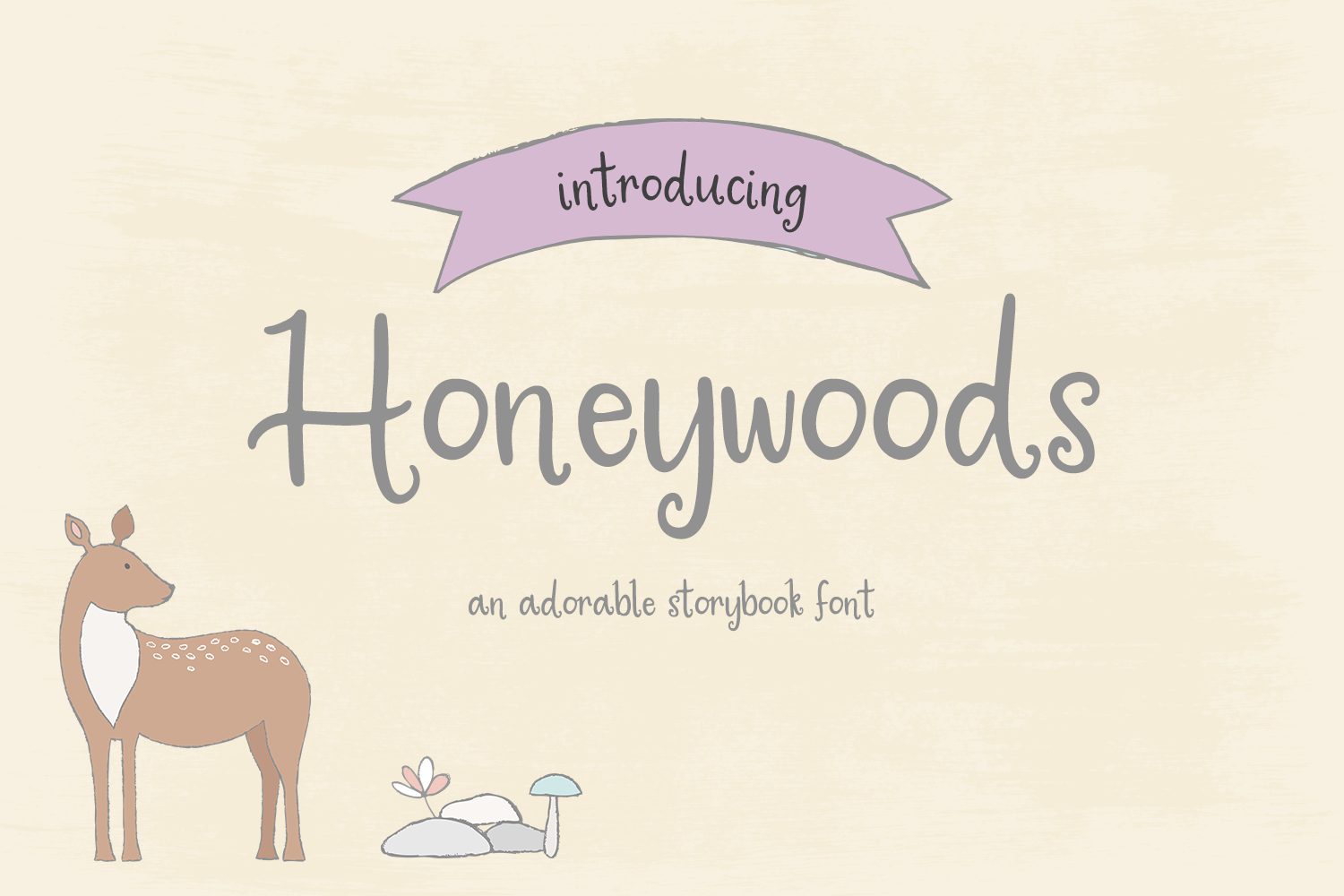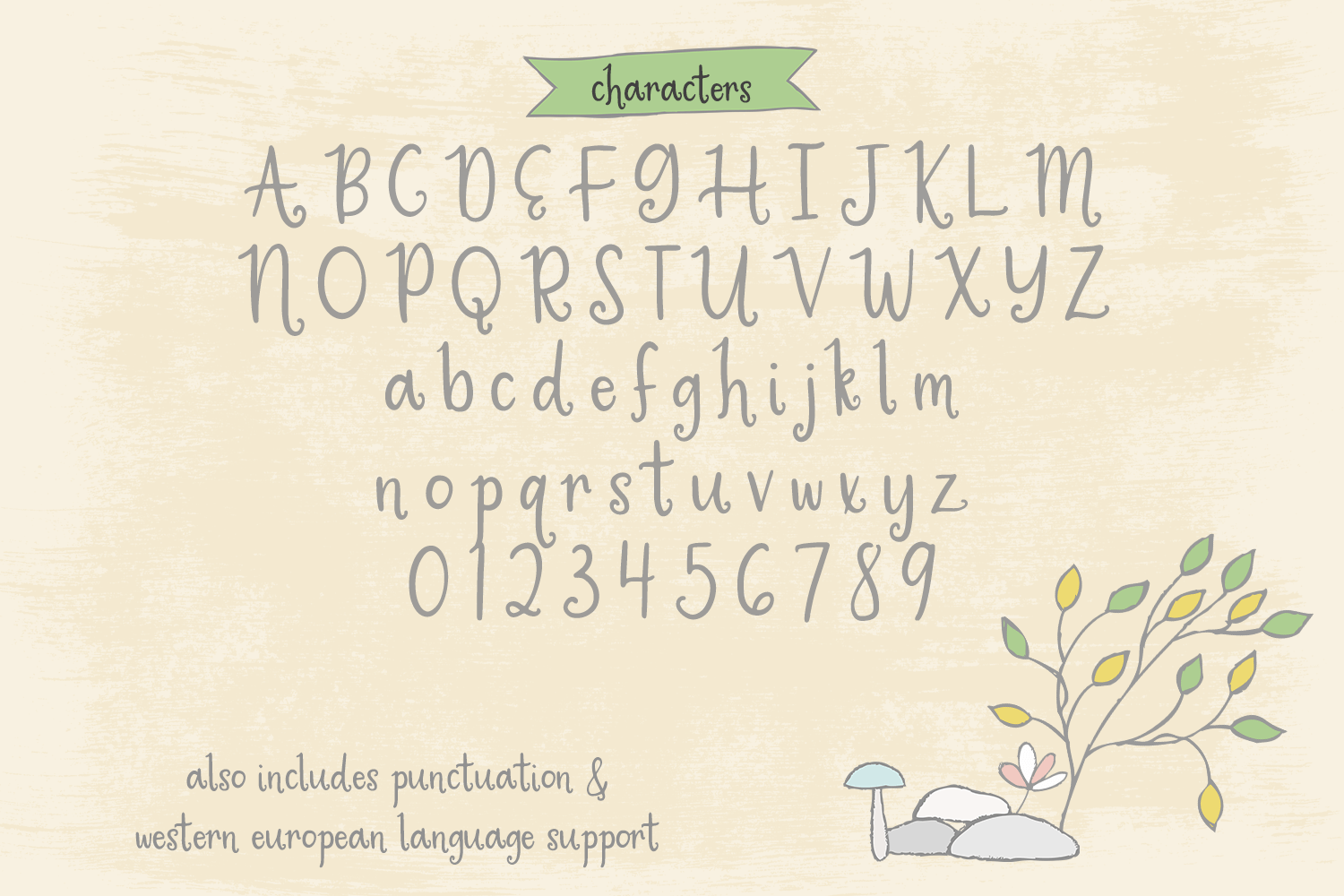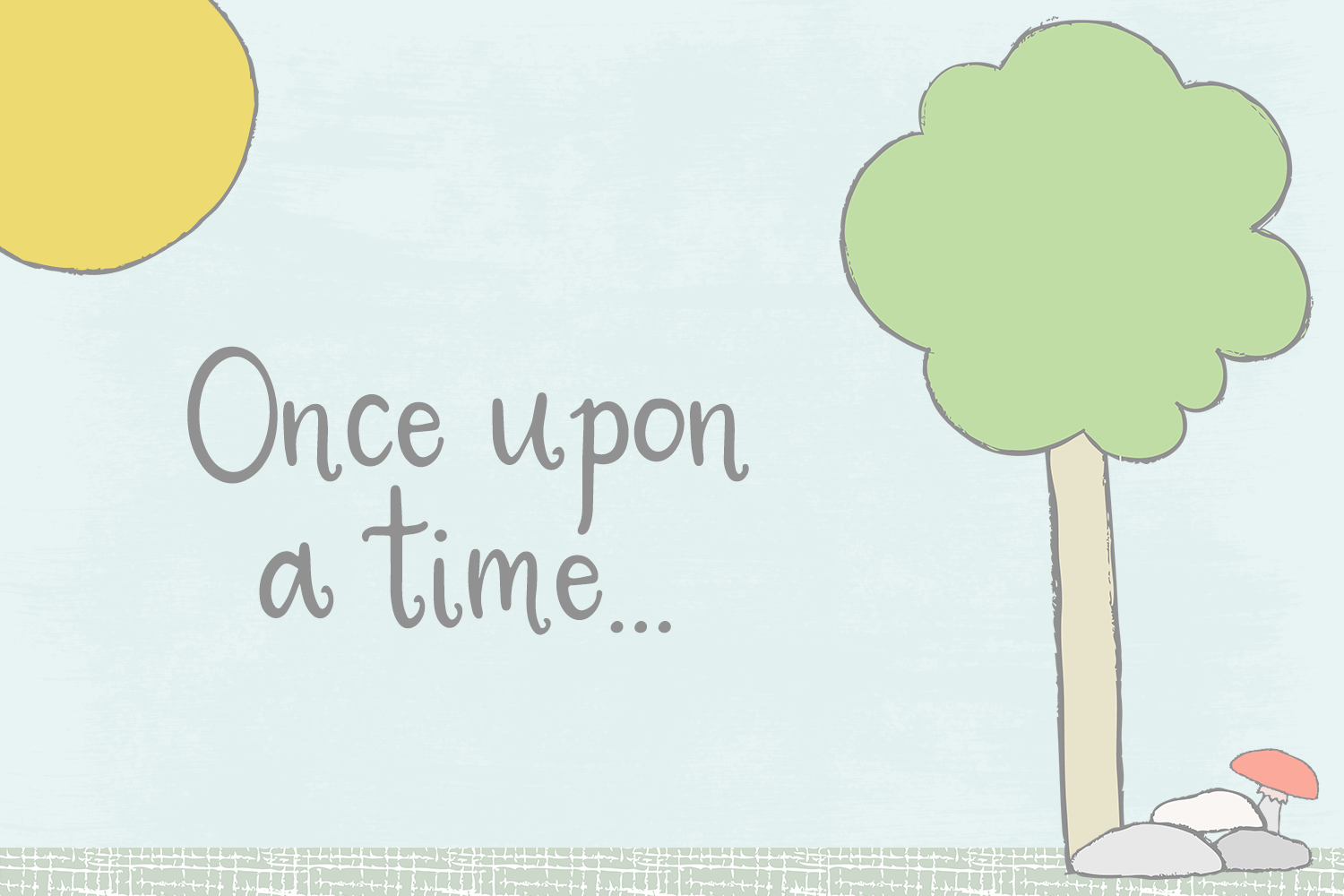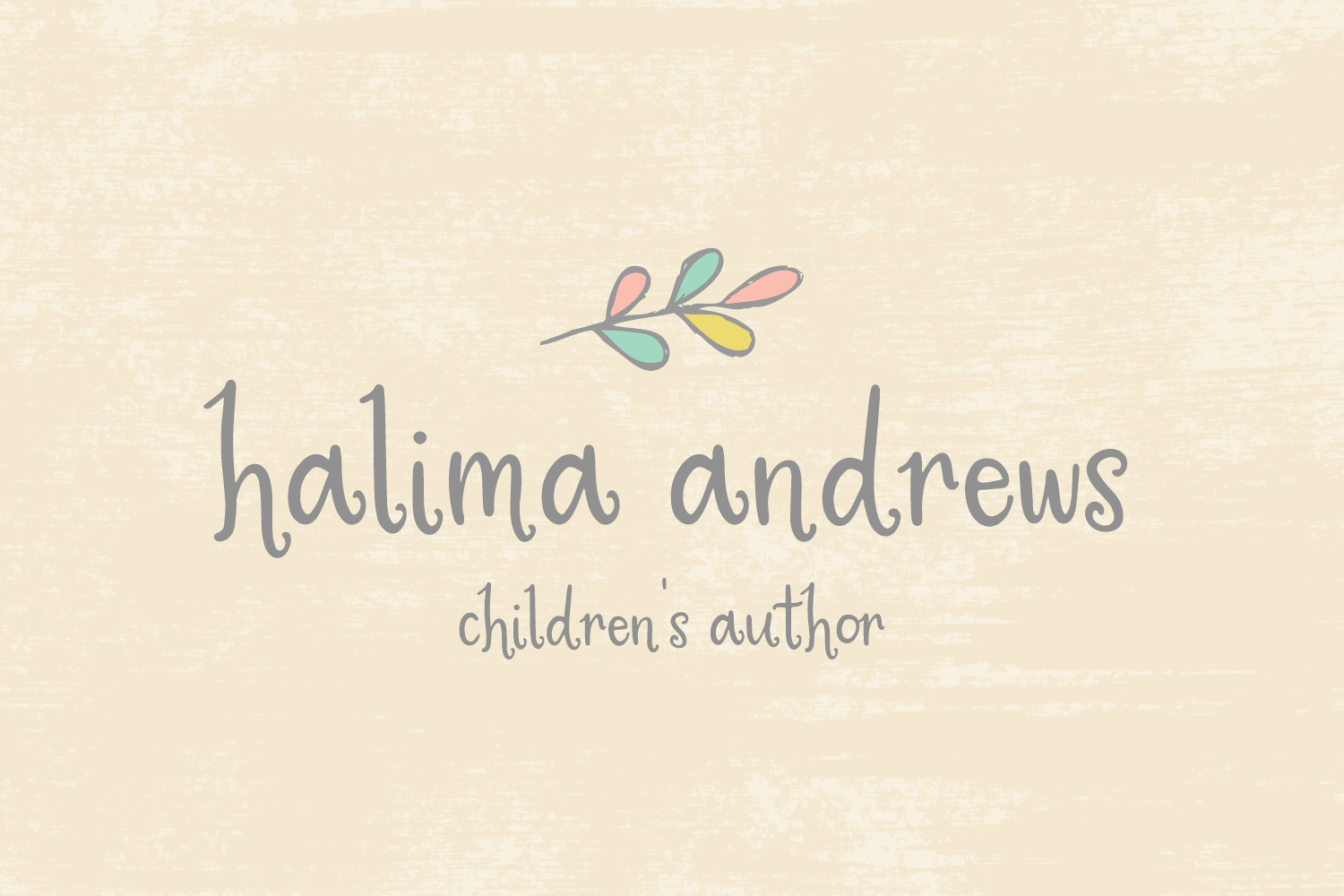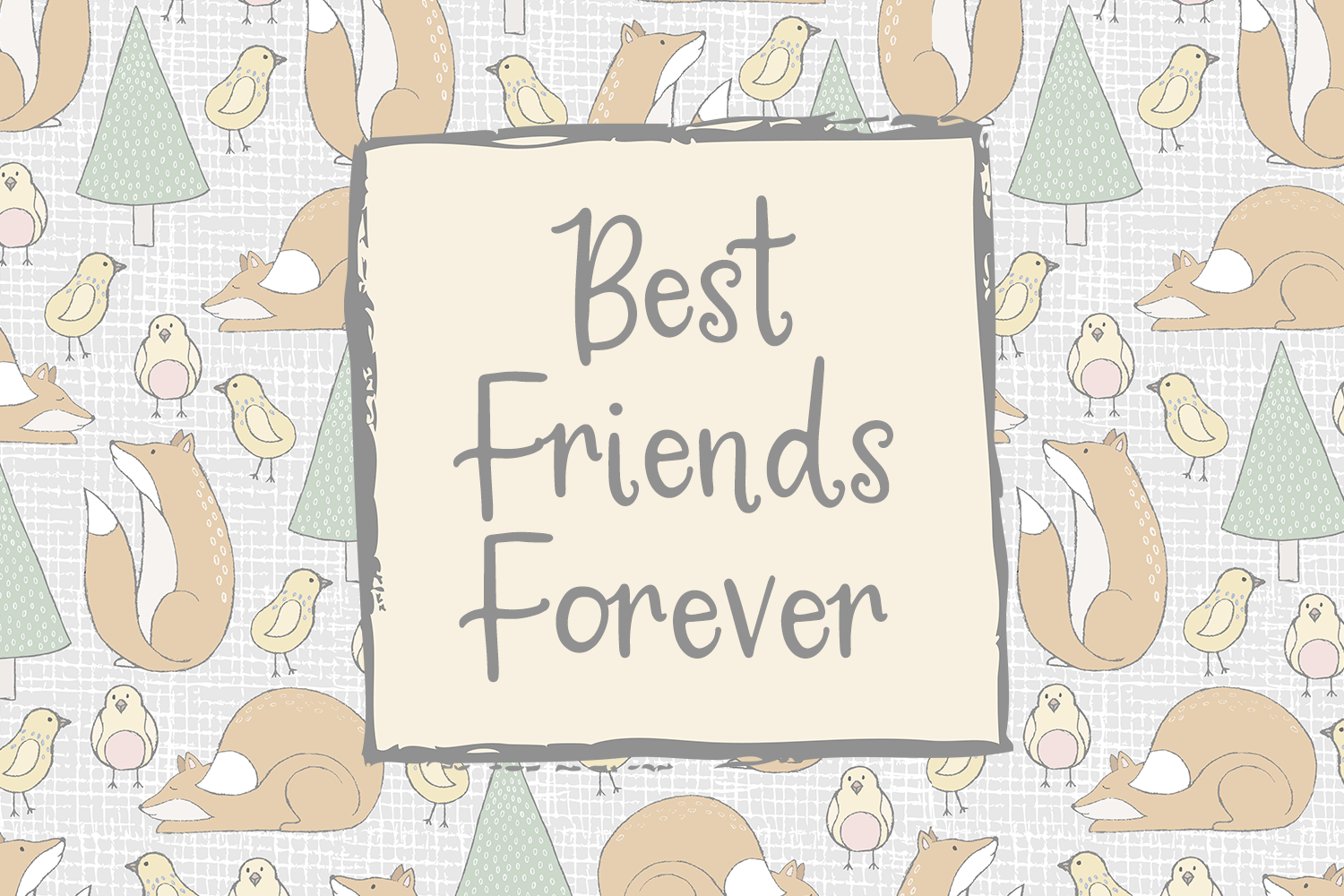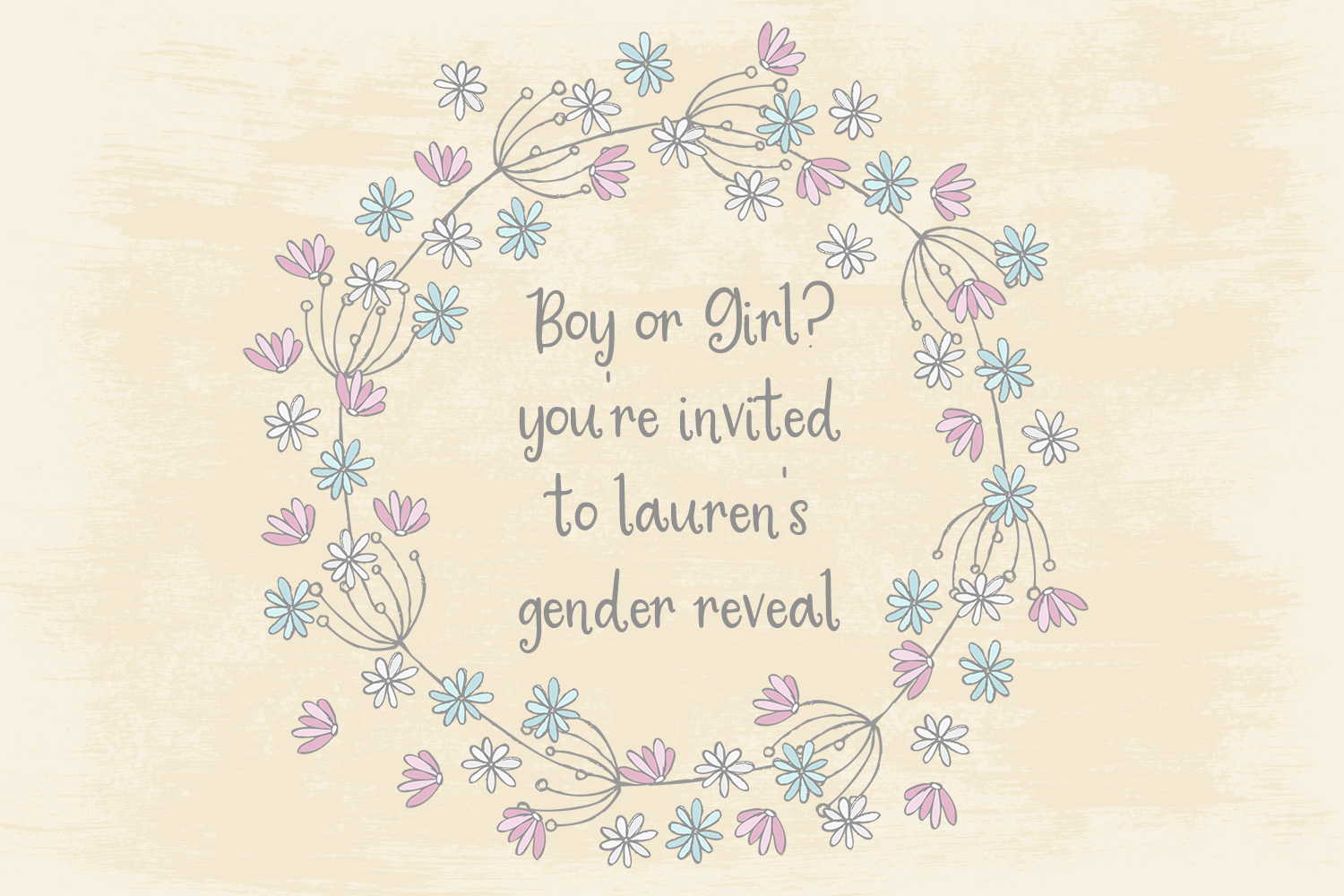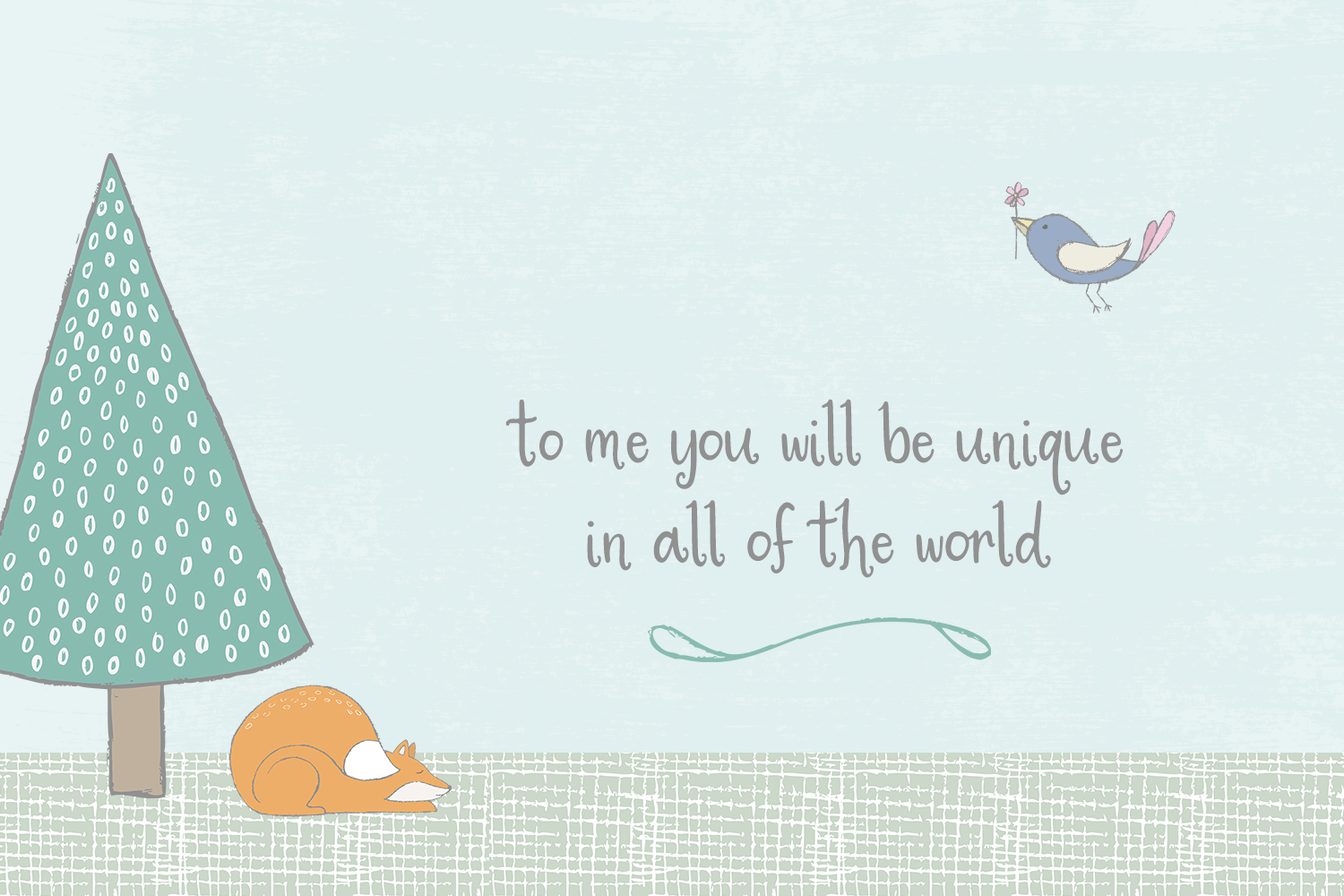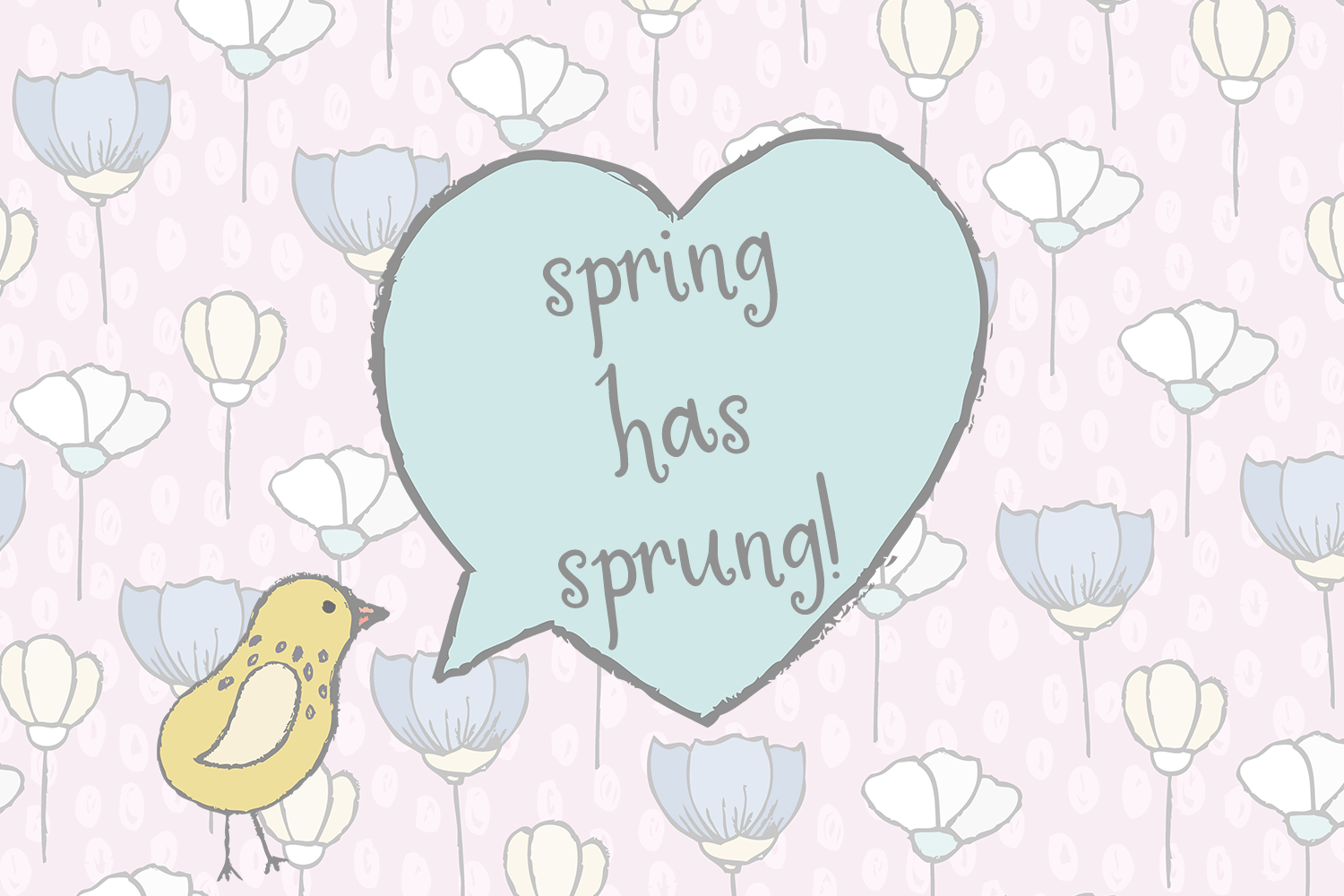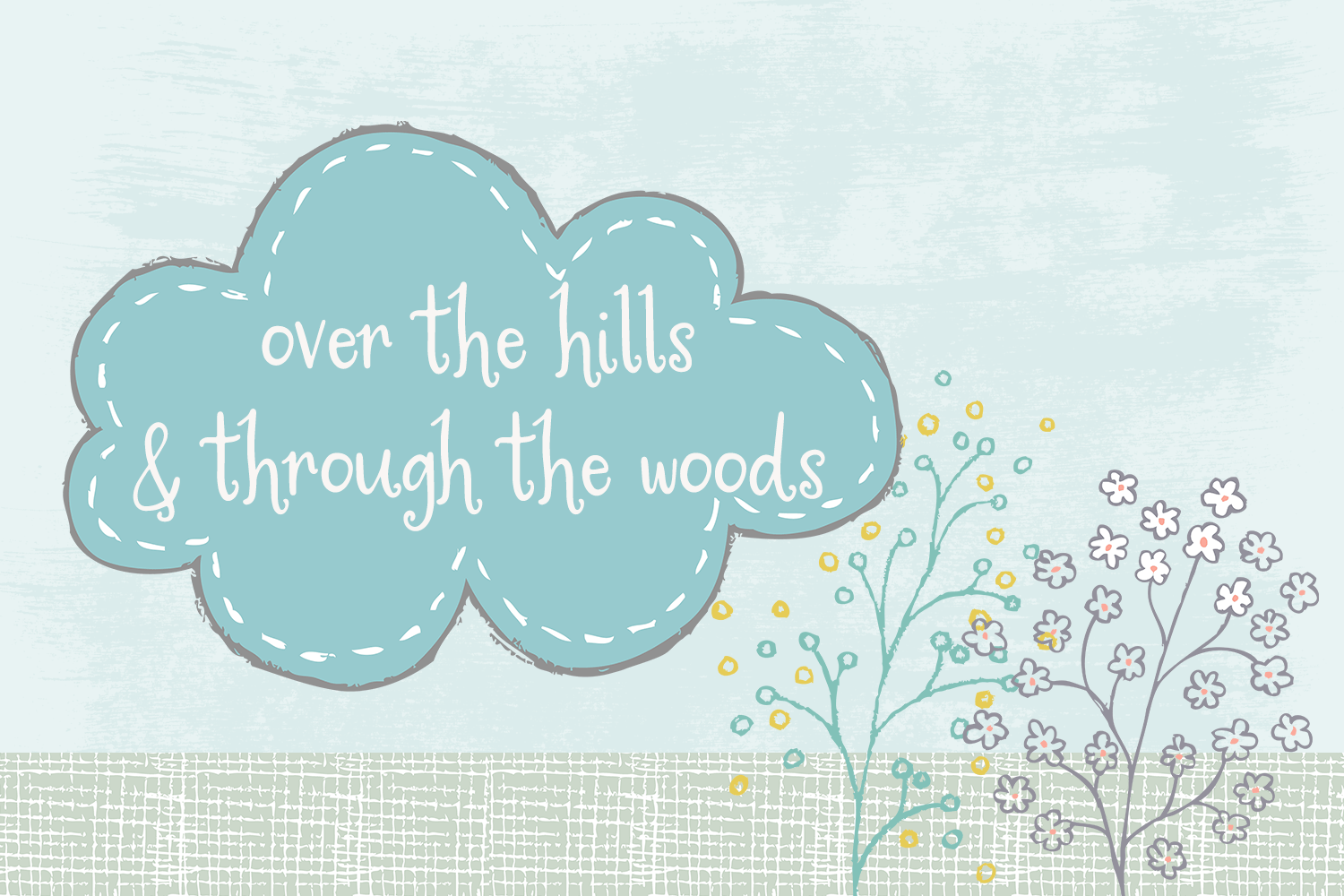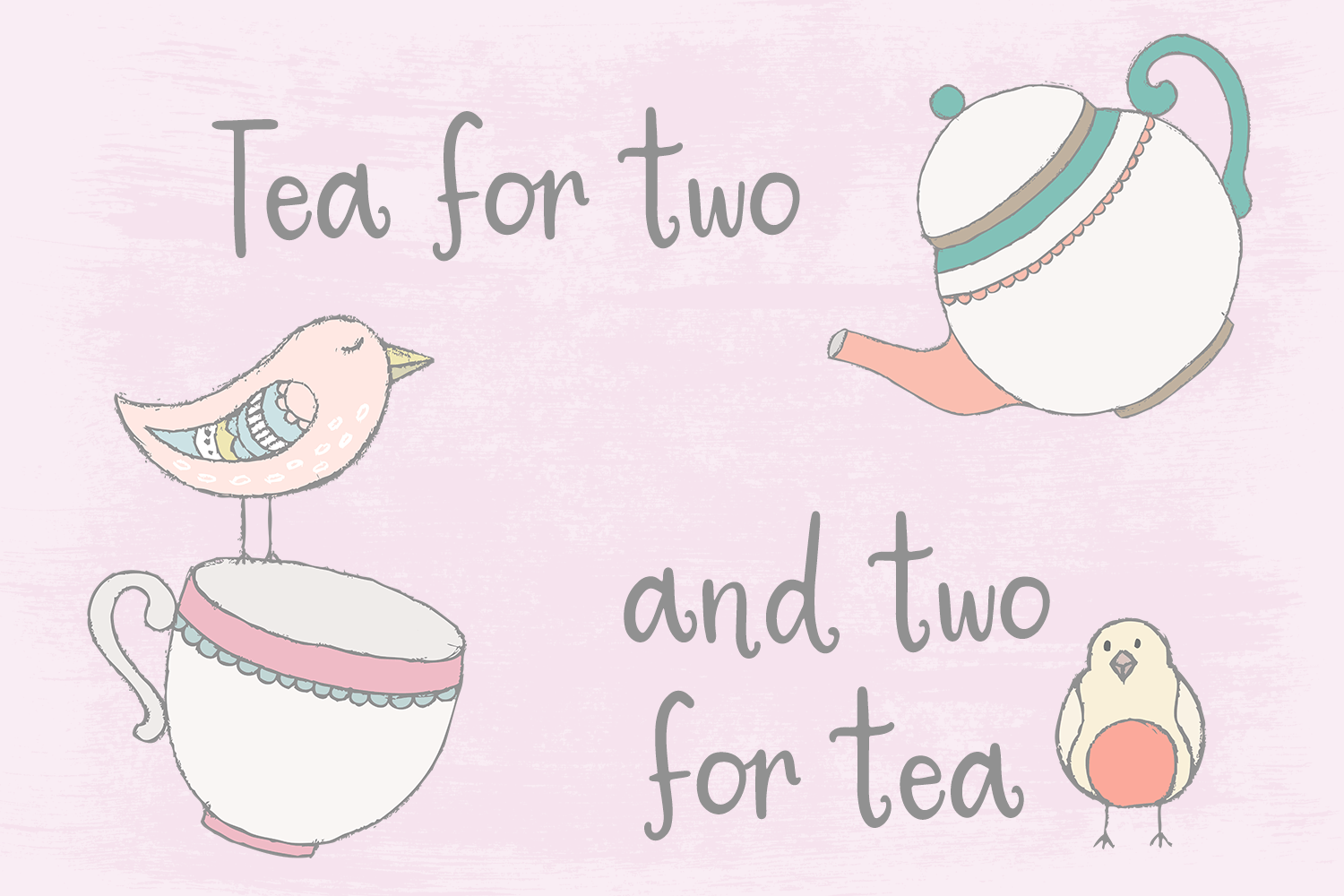
Honeywoods Storybook Font
Introducing Honeywoods, a magical storybook font.
Introducing Honeywoods Storybook font, a magical, lighthearted font.
Honeywoods is best for:
– website header elements needing magical, childlike quality
– clean print design, like magazines + flyers, tailored to children
– logos + branding for child-centric brands
– quote graphics for social media